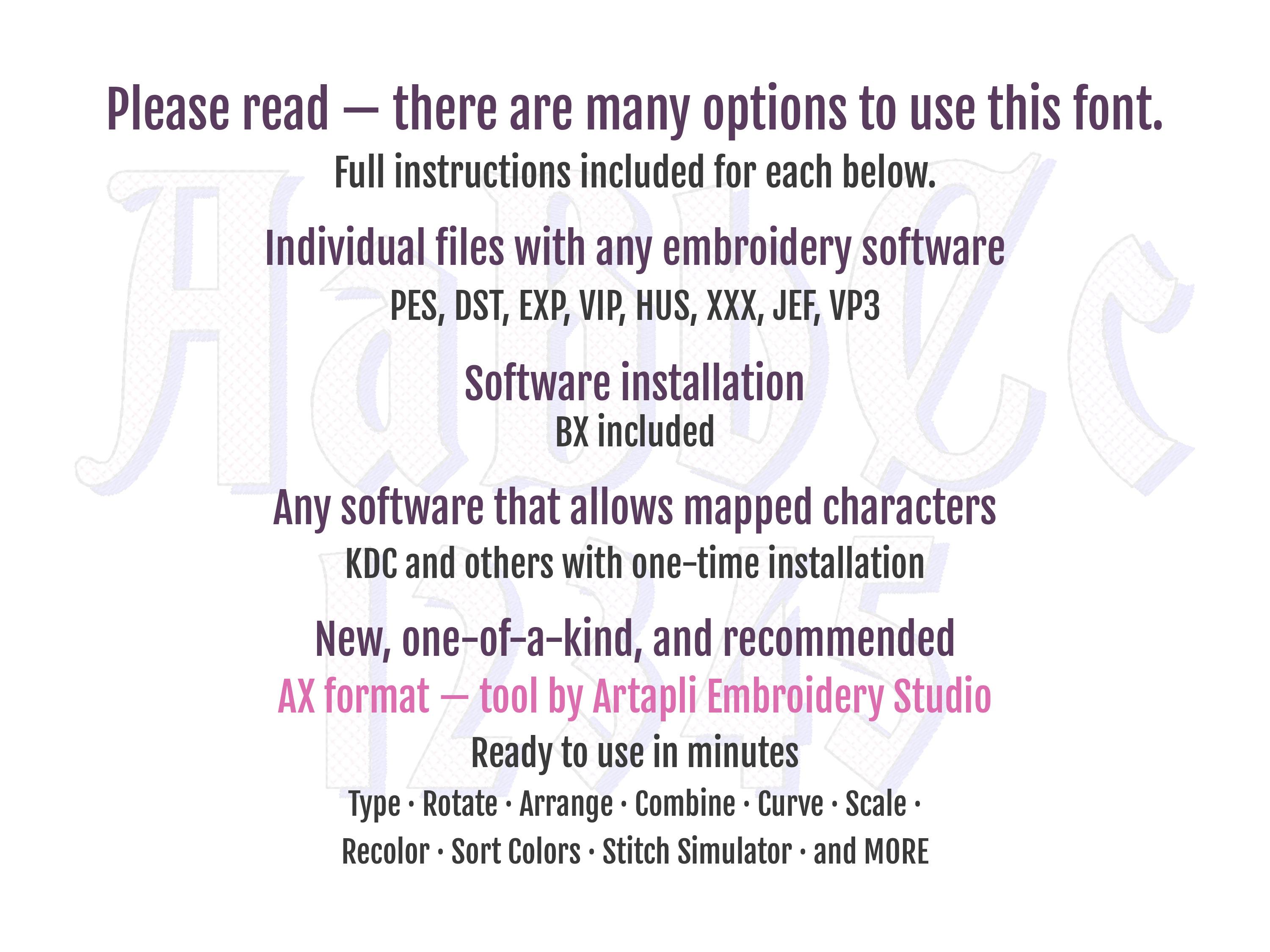
Glitter Shadow Font Old Style Font monogram HTV glitter vinyl alphabet letters machine embroidery designs sizes from 1.1 up to 3.9 inches, BX included
I used HTV glitter vinyl (heat transfer vinyl) with this design.